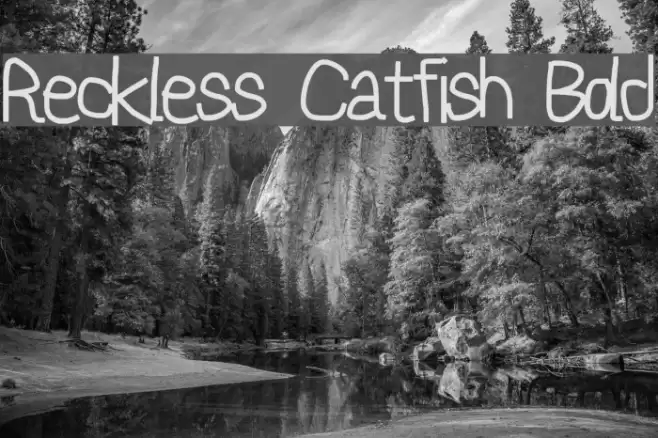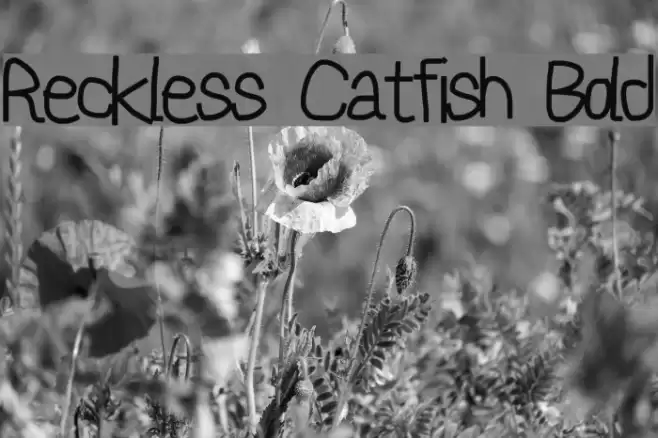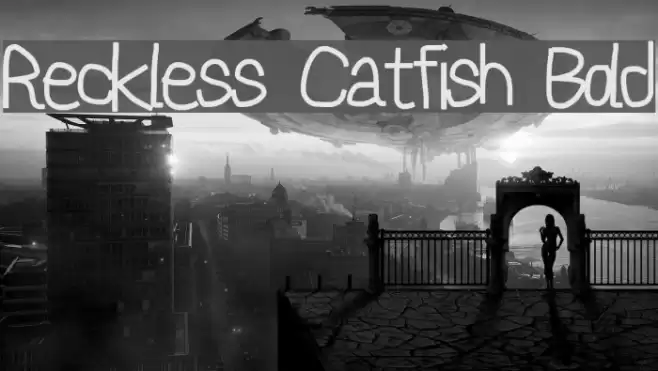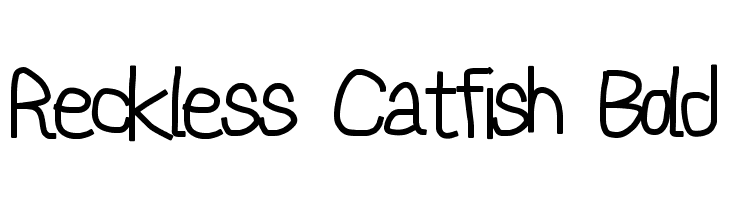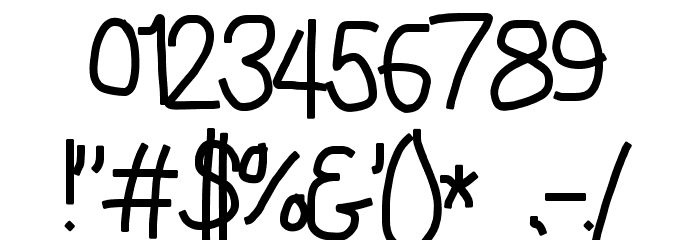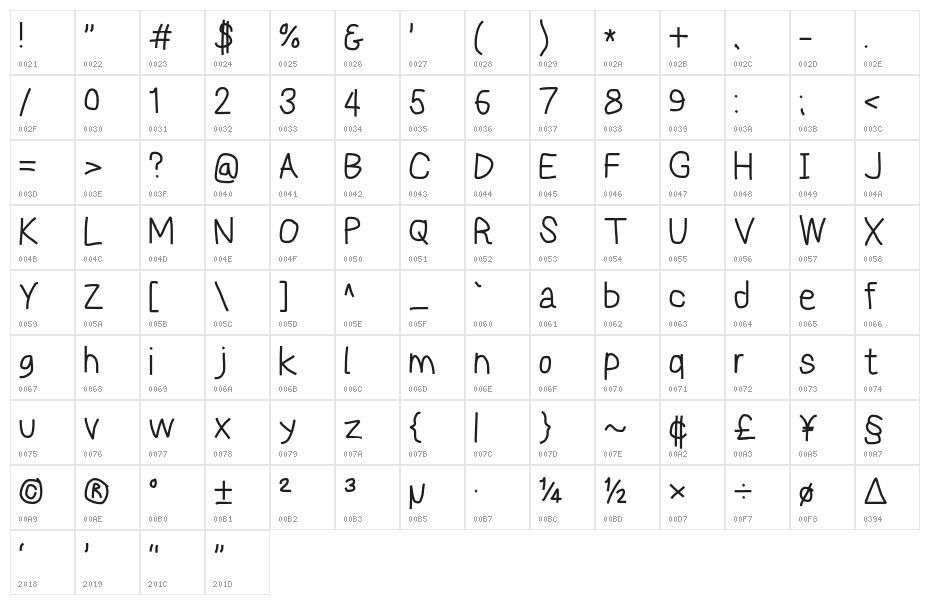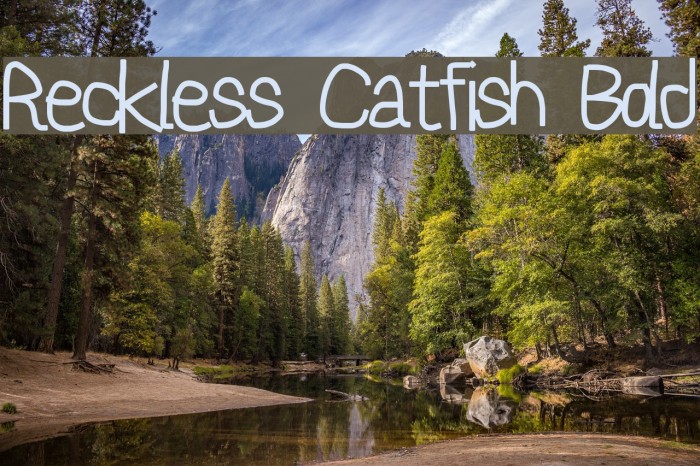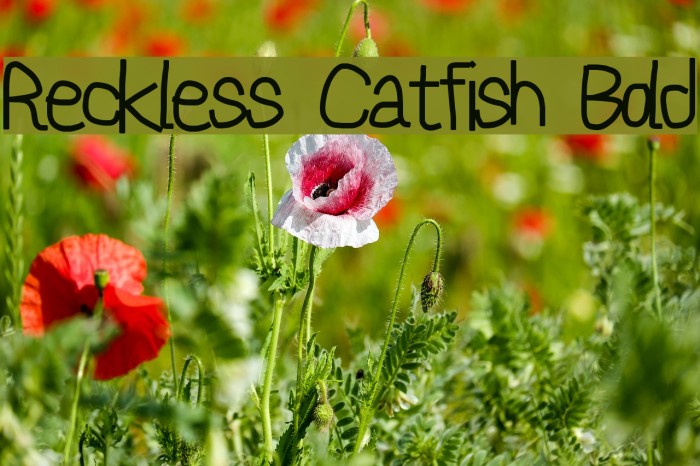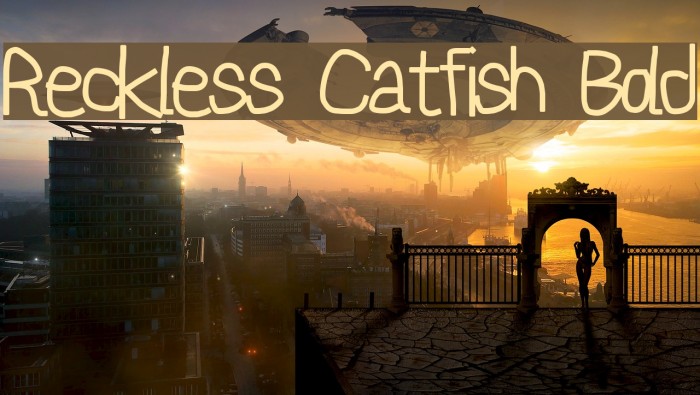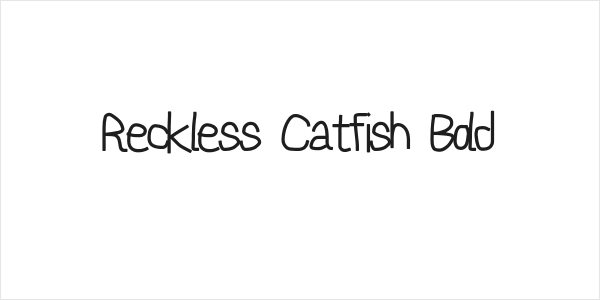
This font features a playful and bold handwritten style with a casual, informal appearance. The letters are characterized by their uneven strokes and slightly irregular shapes, giving them a dynamic and energetic feel. The uppercase and lowercase letters maintain a consistent style, with rounded edges and a slightly slanted orientation. The numbers and special characters follow the same design principles, ensuring a cohesive look across all glyphs. This font's unique personality makes it stand out, offering a sense of creativity and spontaneity.
A bold, playful handwritten font with dynamic and irregular strokes from Uncategorized fonts.
- Proposed Projects: Ideal for creative projects such as posters, invitations, children's books, and branding materials that require a fun and lively touch.
- Overall Style: Playful